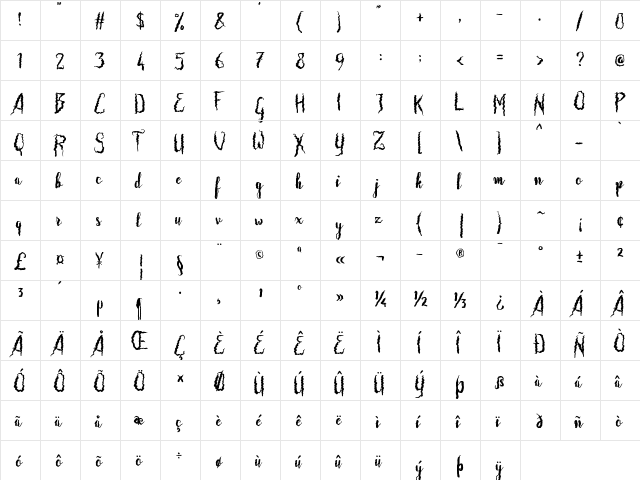
Frizzy Bella Regular
| Foundry | Darwinoo |
| Designer | Darwinoo |
Design Context for Frizzy Bella Typeface
Frizzy Bella is a composed and adaptable typeface that performs quietly and consistently across a wide range of design contexts.